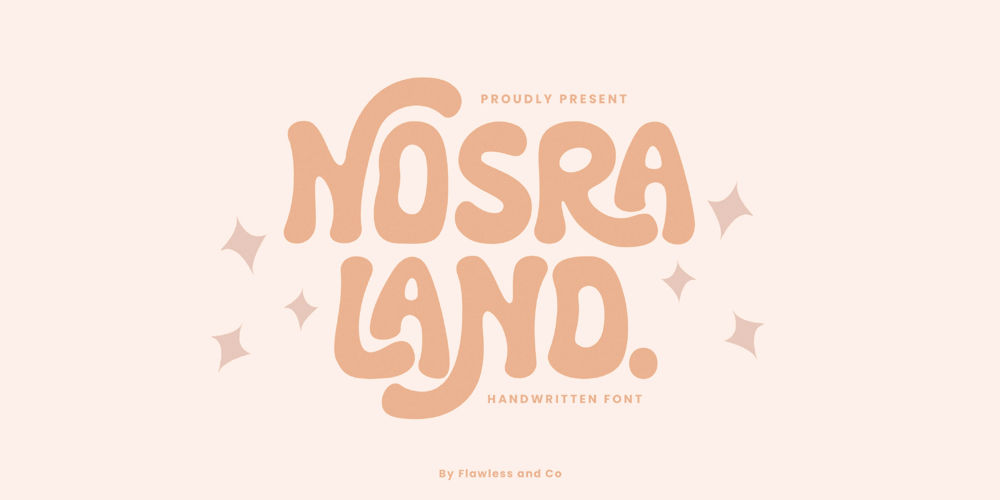
Nosra Land
Nosra Land Font Family was designed by Achmad Yani and published by Flawlessandco. Nosra Land contains 1 styles and family package options. Nosra Land – Handwritten Sans Serif Font, Packaging Font, Trademark Font, Playful Font, Fun Font, Branding Font, Logo Font, Modern Font, Canva Font, Cricut Font, Cursive Font, Procreate FontIntroducing “Nosra Land” a handwritten sans serif font. Elevate your packaging designs with “Nosra Land,” a versatile handwritten sans serif font that strikes the perfect balance between warmth and simplicity. With its organic charm and clean lines, Nosra Land adds a touch of authenticity and modernity to your packaging, making every product stand out on the shelves.Keywords: Packaging Font, Trademark Font, Sans Serif Font, Handwritten FontThere’s some connected letters and some alternates that suitable for any graphic designs such as branding materials, t-shirt, print, business cards, logo, poster, t-shirt, photography, quotes .etcThis font support for some multilingual. Also contains uppercase A-Z and lowercase a-z, alternate character, numbers 0-9, and some punctuation.If you need help, just write me! Thanks so much for checking out my shop!